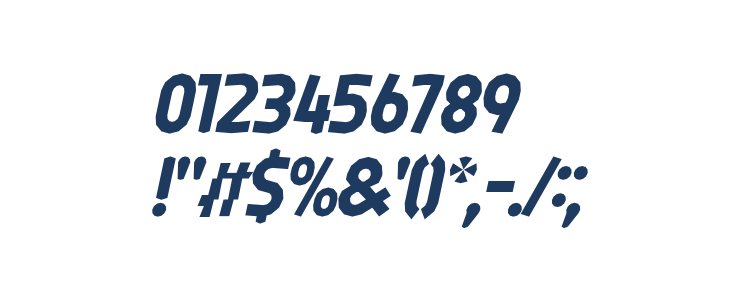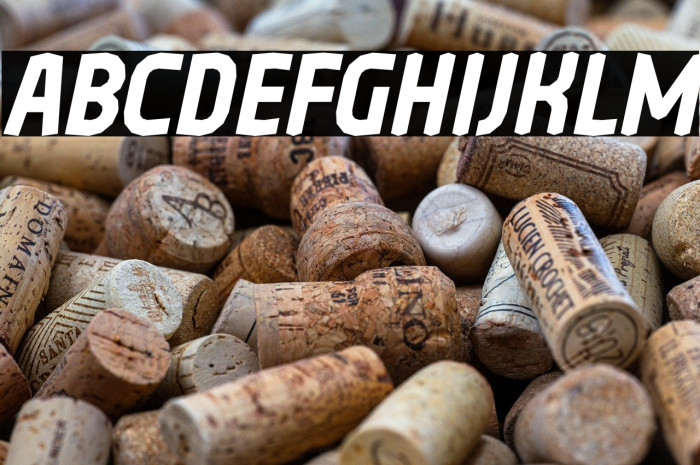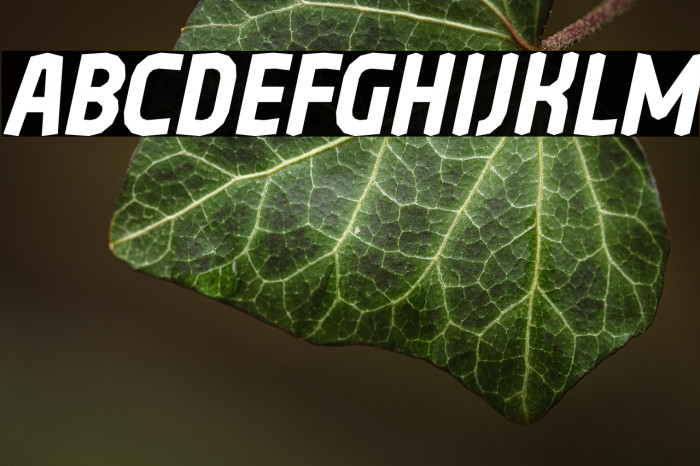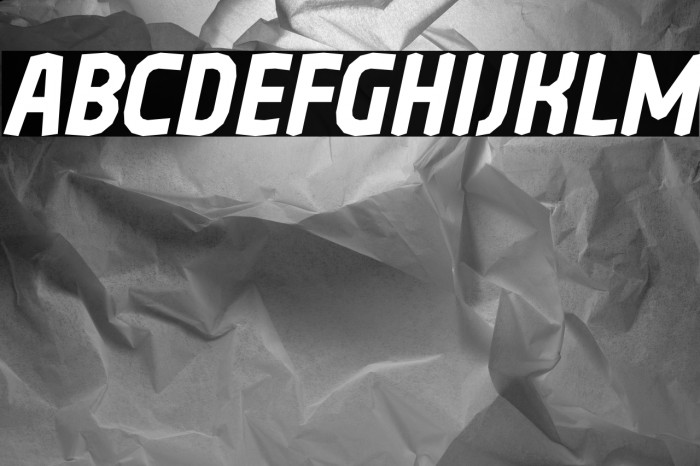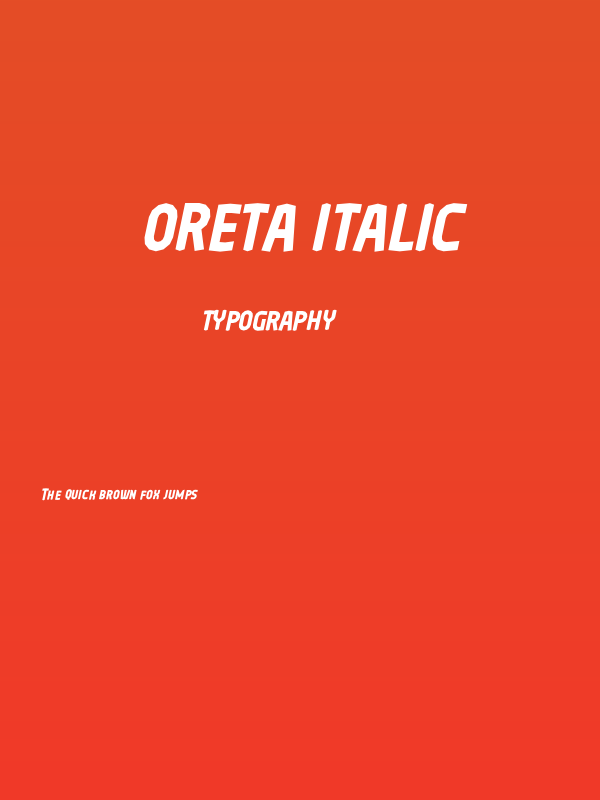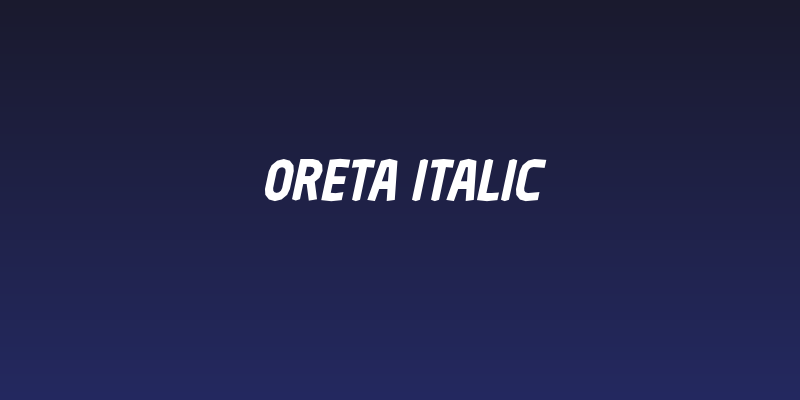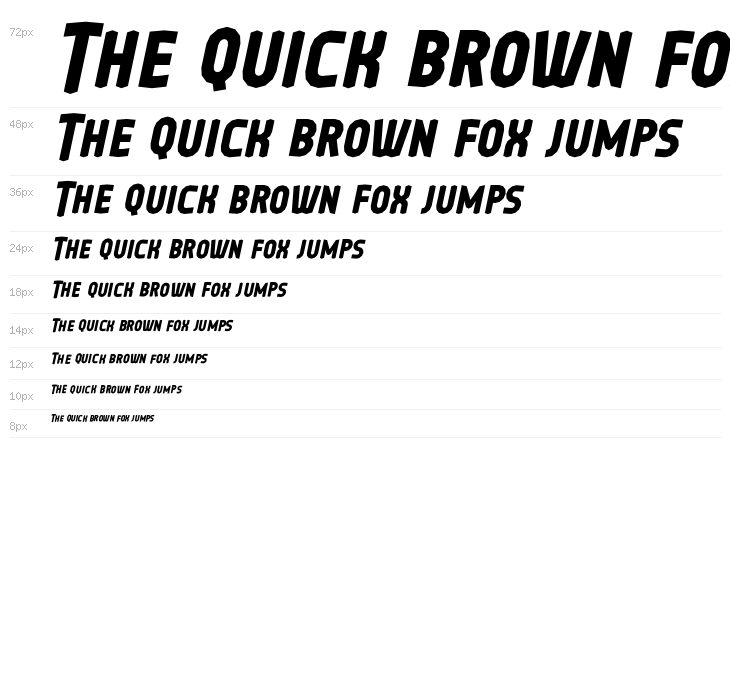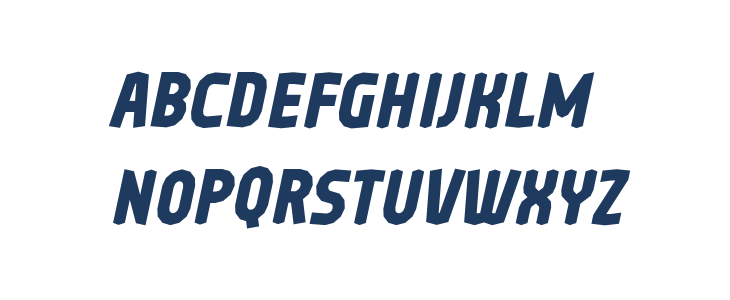
Oreta Italic Font
Oreta Italic Description
This font features a bold and dynamic italic style, characterized by its strong diagonal slant and thick strokes. The uppercase and lowercase letters maintain a consistent weight, providing a sense of stability and strength. The numerals are equally bold, ensuring readability and impact. Special characters are designed with the same boldness, making them stand out. The overall appearance is modern and assertive, suitable for making a statement in any design. The font's bold nature and italic style give it a sense of movement and energy, making it ideal for projects that require a strong visual presence.
| Proposed Projects | Ideal for sports branding, dynamic posters, bold headlines, and impactful logos. |